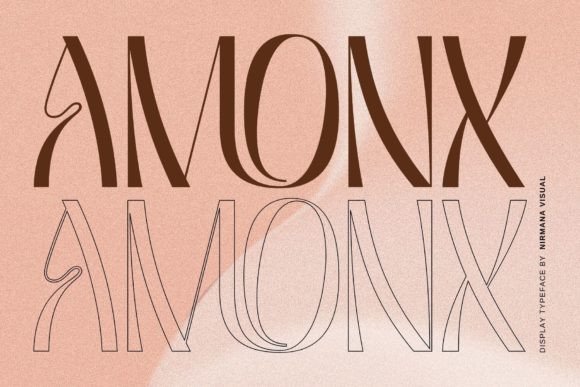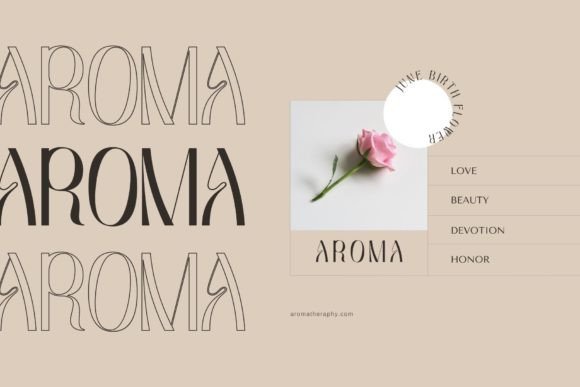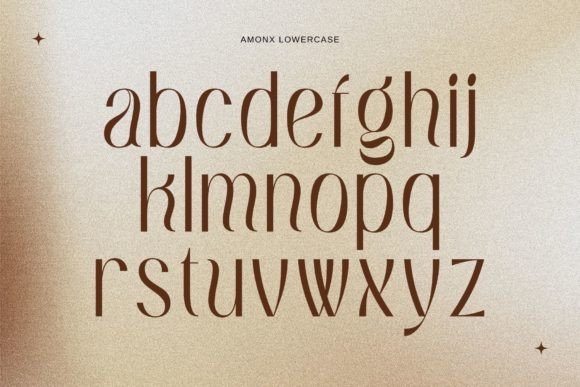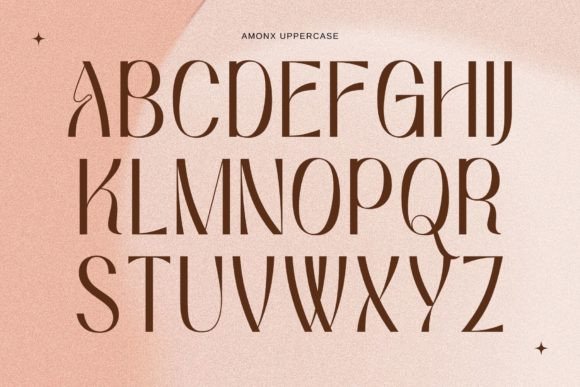
Amonx Font: Unique Display Font for Modern Logo Design & Branding
About the Amonx Font
Introducing the Amonx Font, a beautifully crafted typeface designed to elevate your creative projects. Amonx offers beautiful typographic harmony for a diversity of design projects, including logos & branding, social media posts, advertisements & product designs.
Amonx Font Usage Examples